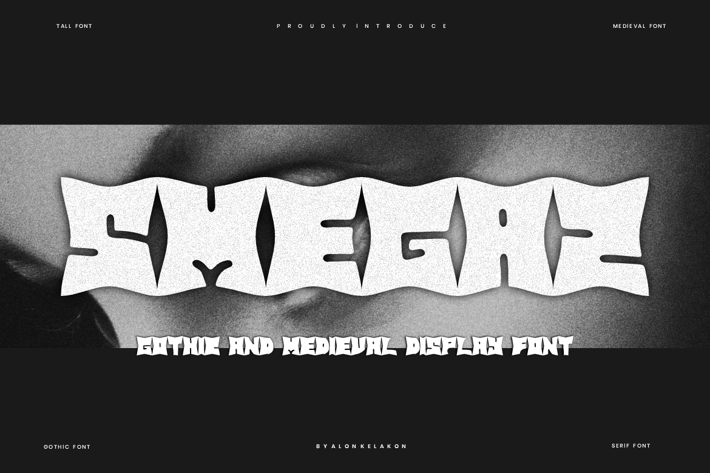
Smegaz - Gothic Brutalism Font
alonkelakon
Smegaz Font is unique . Ready to use for your design like labeling, movie sceen, poster, movie title, gigs, album covers, logos, and much more.